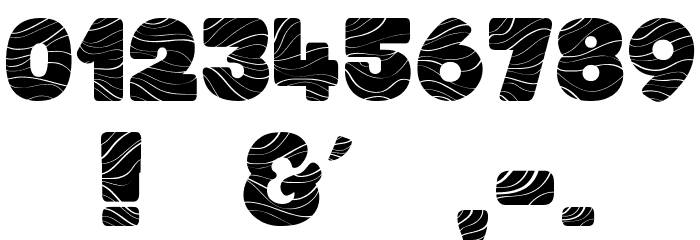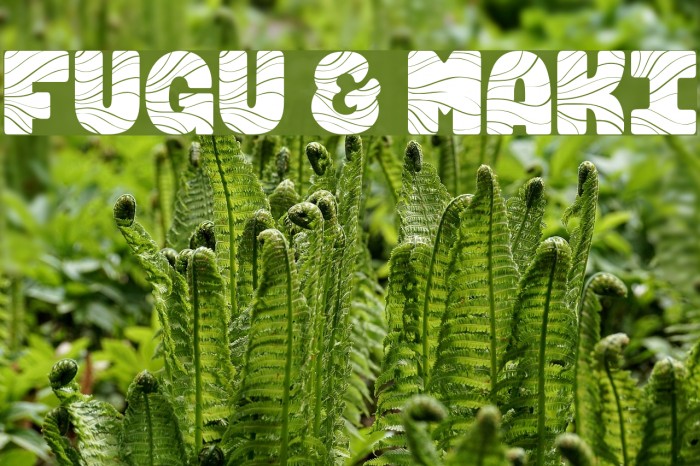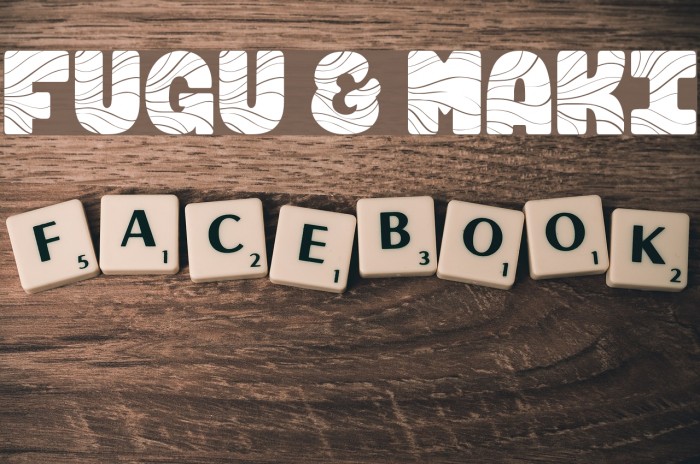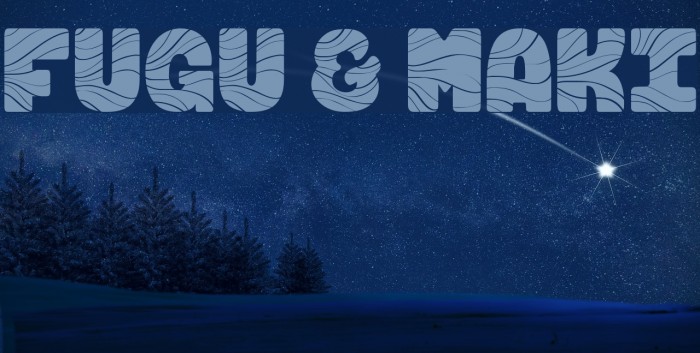
FUGU & MAKI Font
This font features a bold, decorative style with a unique pattern filling each character. The letters are uppercase and have a playful, artistic design that incorporates wavy lines within the solid forms, creating a textured appearance. The numbers and special characters follow the same design, ensuring consistency across the font. The overall look is eye-catching and suitable for creative projects that require a standout typeface.
A bold, decorative font with wavy line patterns inside each character.
- Proposed Projects: Ideal for posters, branding, and creative design projects that need a distinctive and artistic touch.